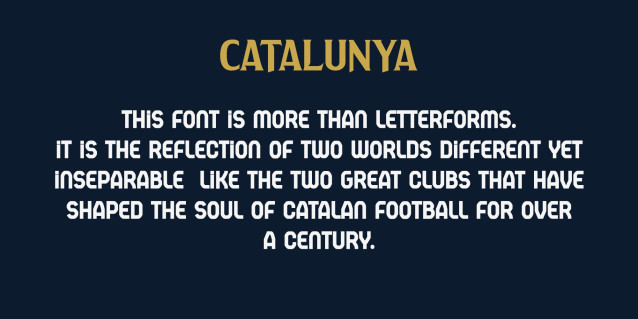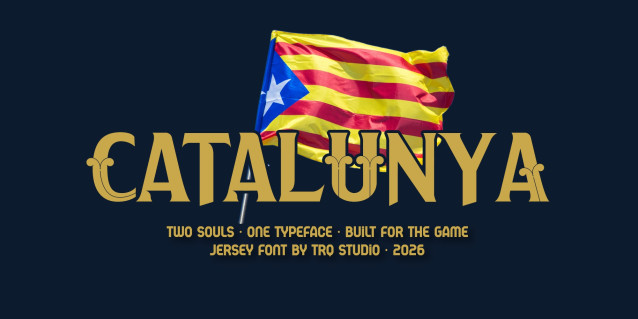
Catalunya Font is a bold display typeface inspired by classic Mediterranean elegance and historic Catalan identity. With its sharp serifs, ornamental curves, and commanding proportions, the font blends traditional sophistication with a modern cinematic presence.
Designed to stand out in headlines, branding, posters, packaging, and luxury visual identities, Catalunya delivers a strong personality while maintaining readability and refinement. The decorative terminals and vintage-inspired structure evoke heritage, culture, and timeless craftsmanship.
Whether used for editorial titles, premium branding, travel campaigns, or artistic projects, Catalunya brings a sense of prestige, warmth, and authenticity to every composition.